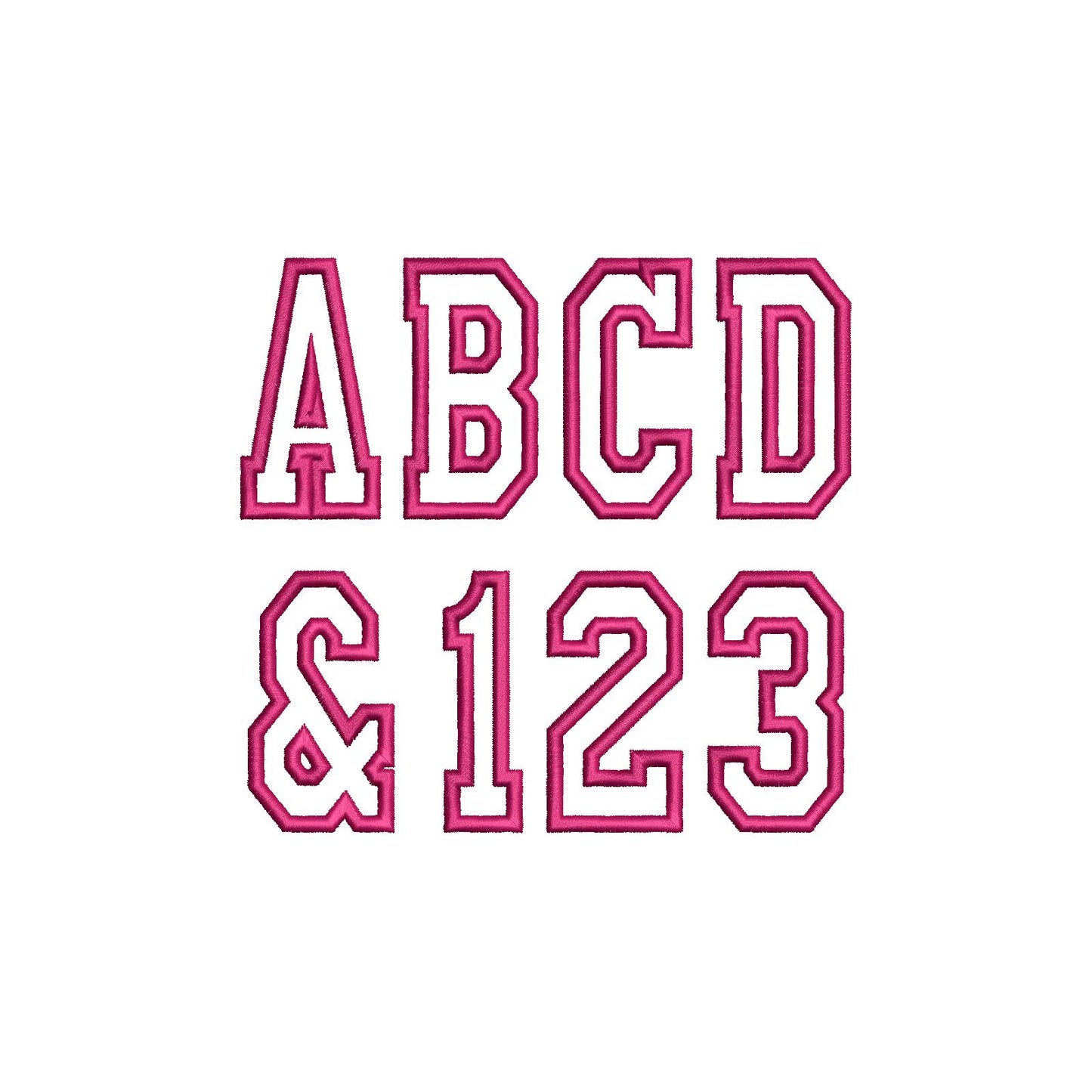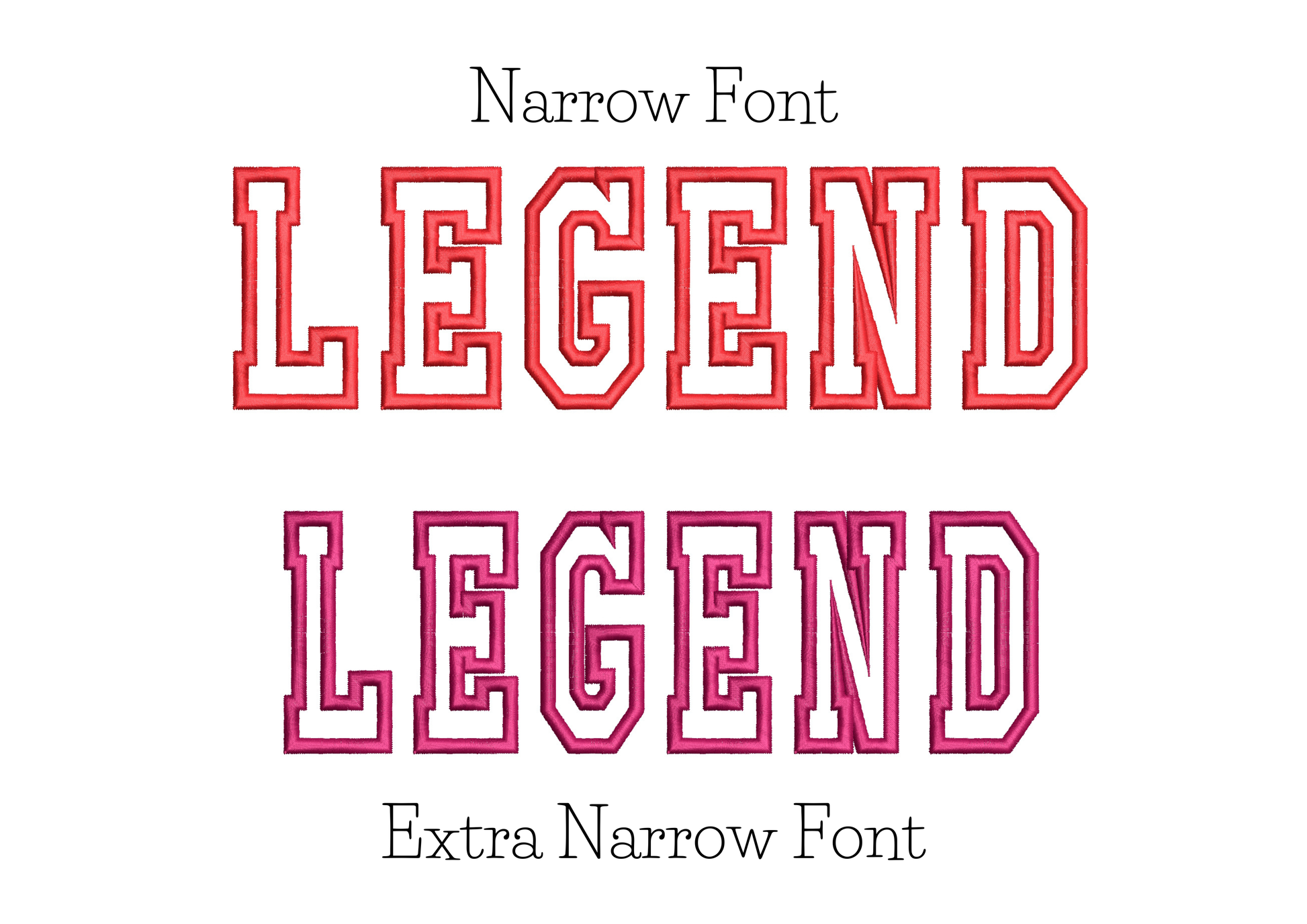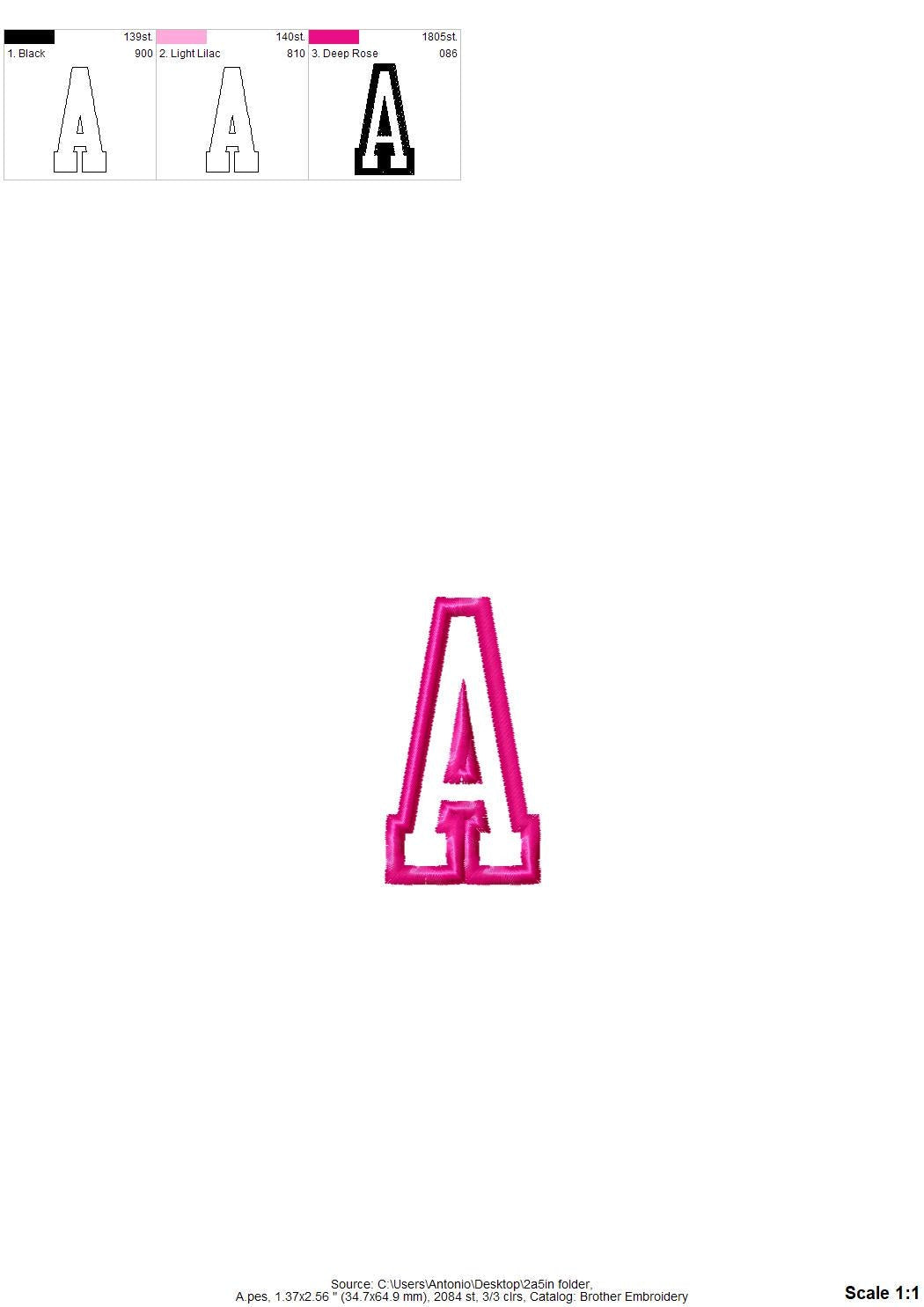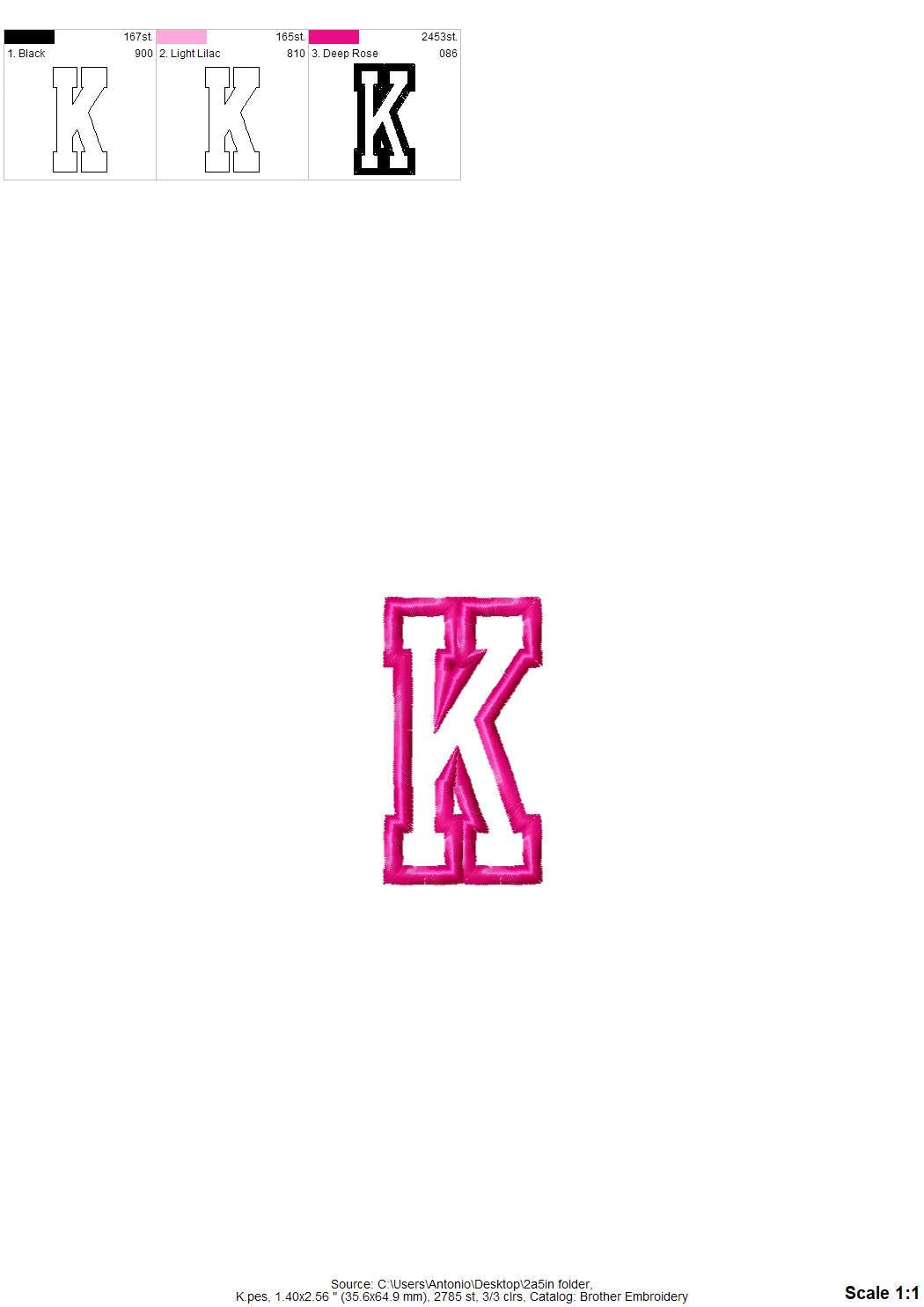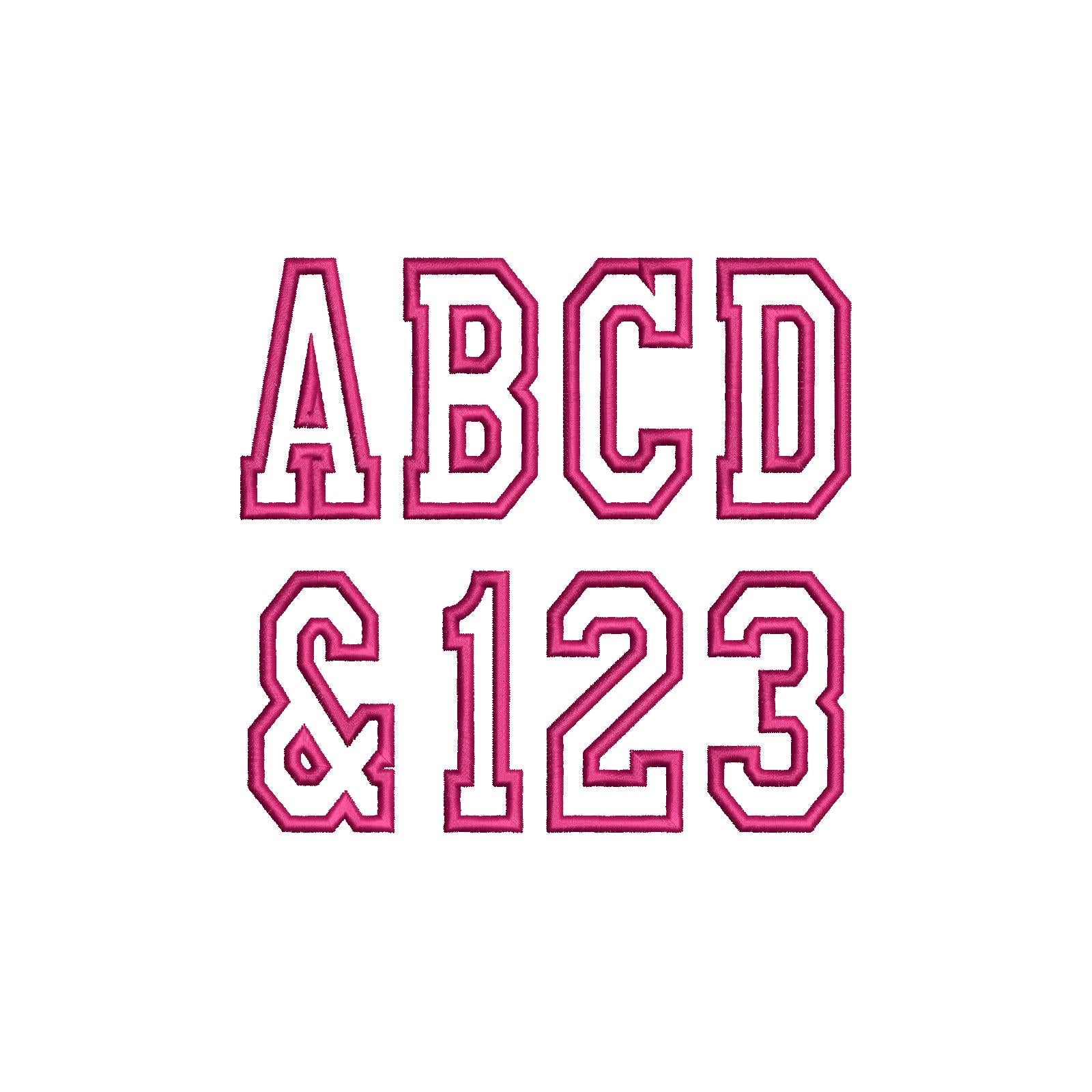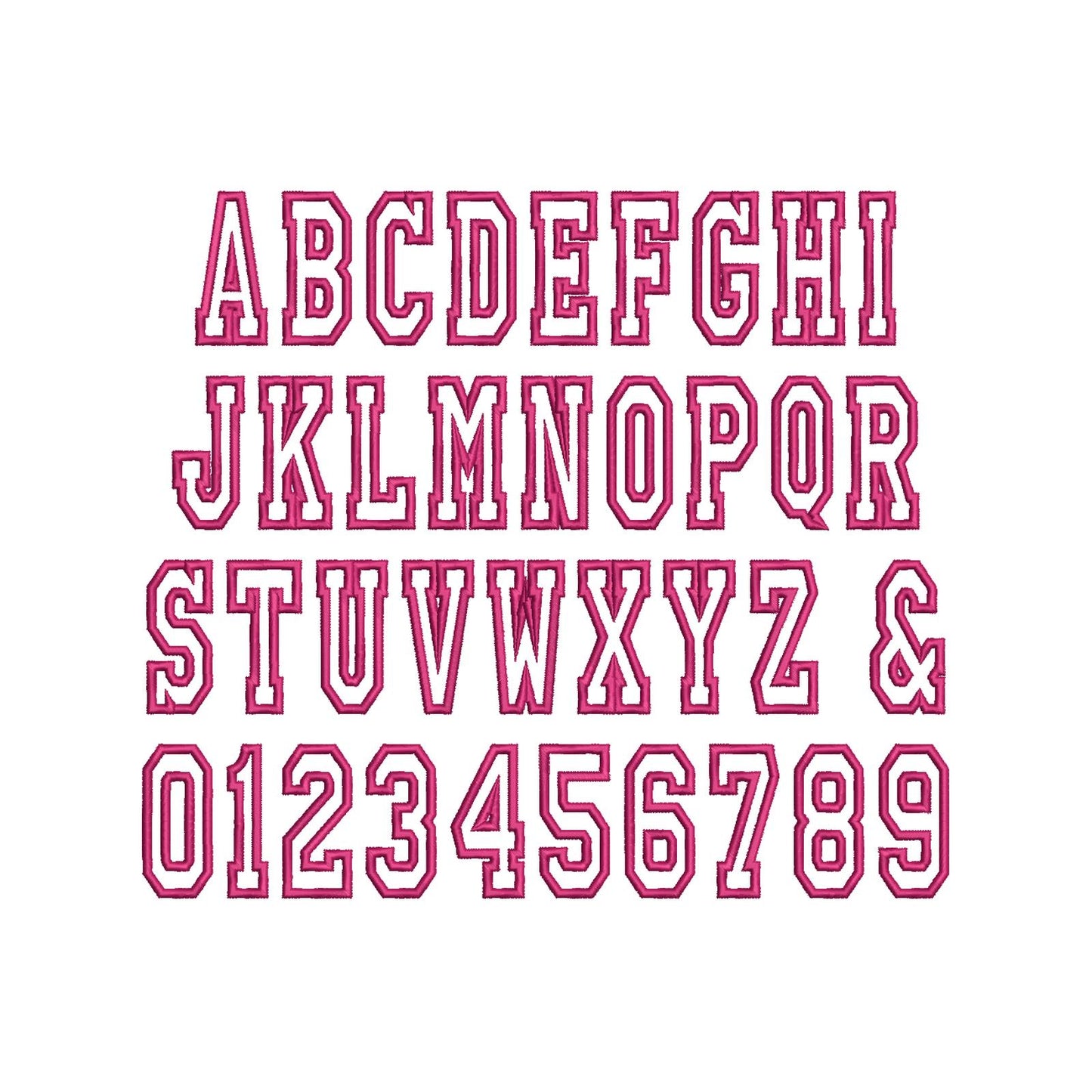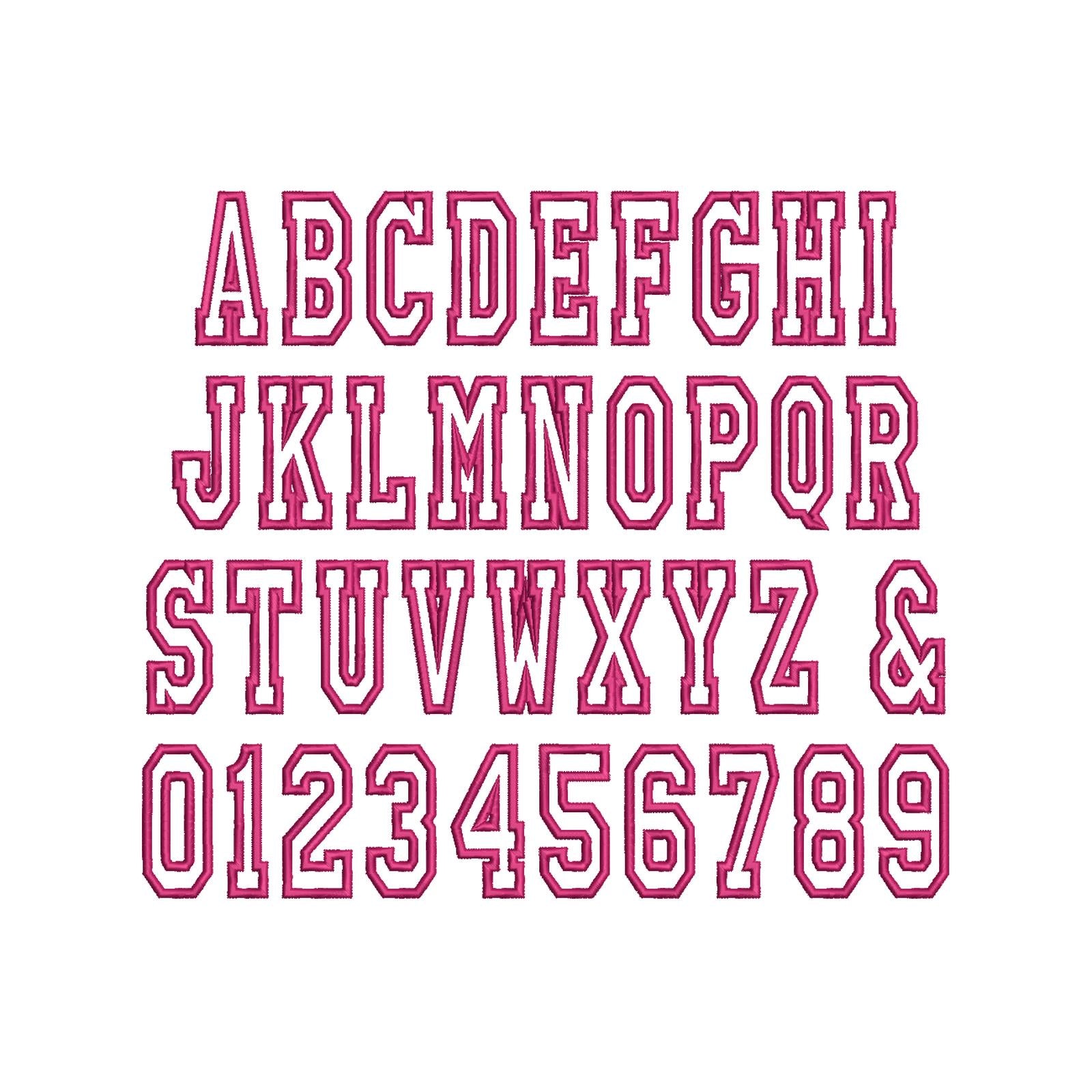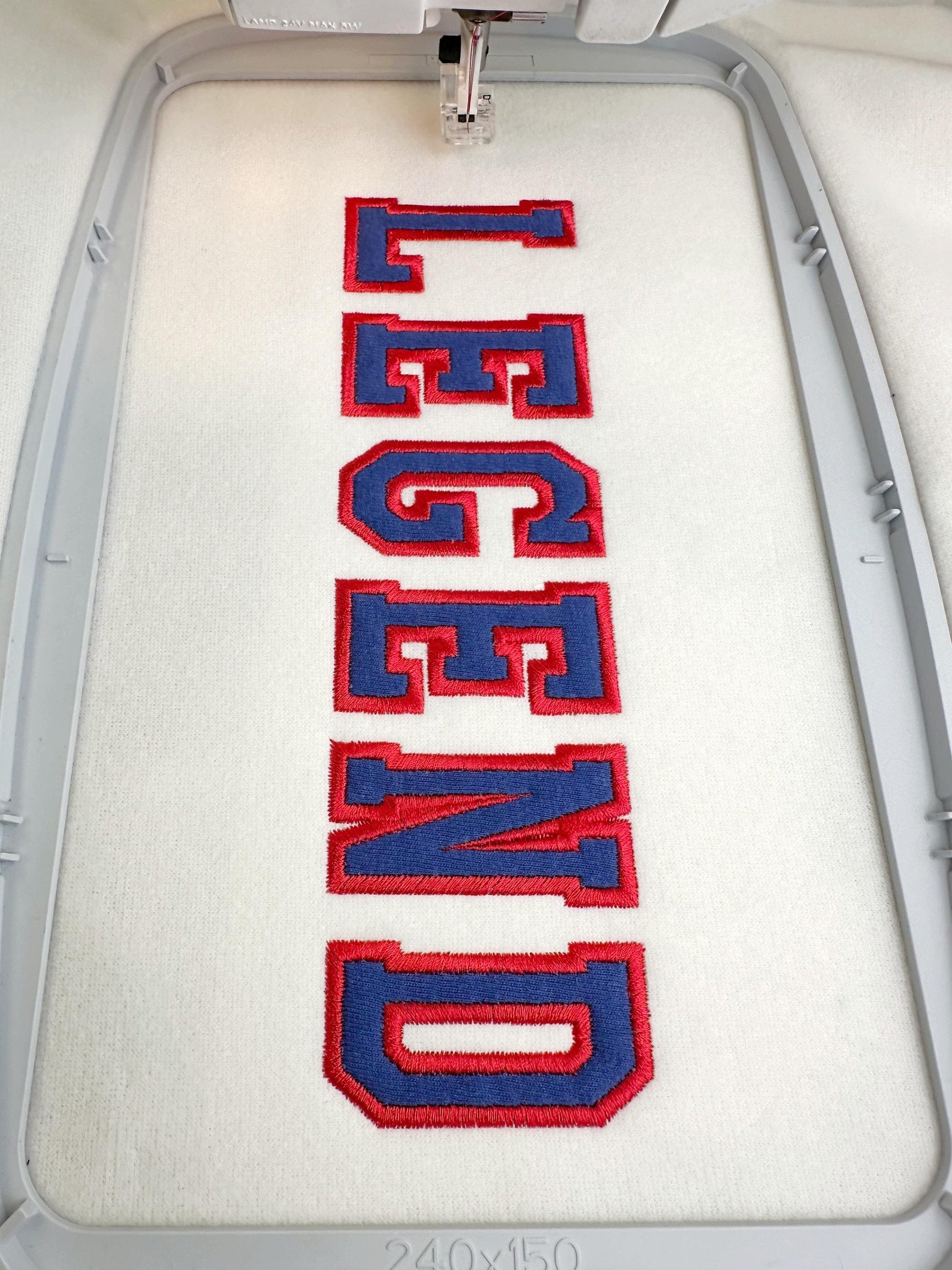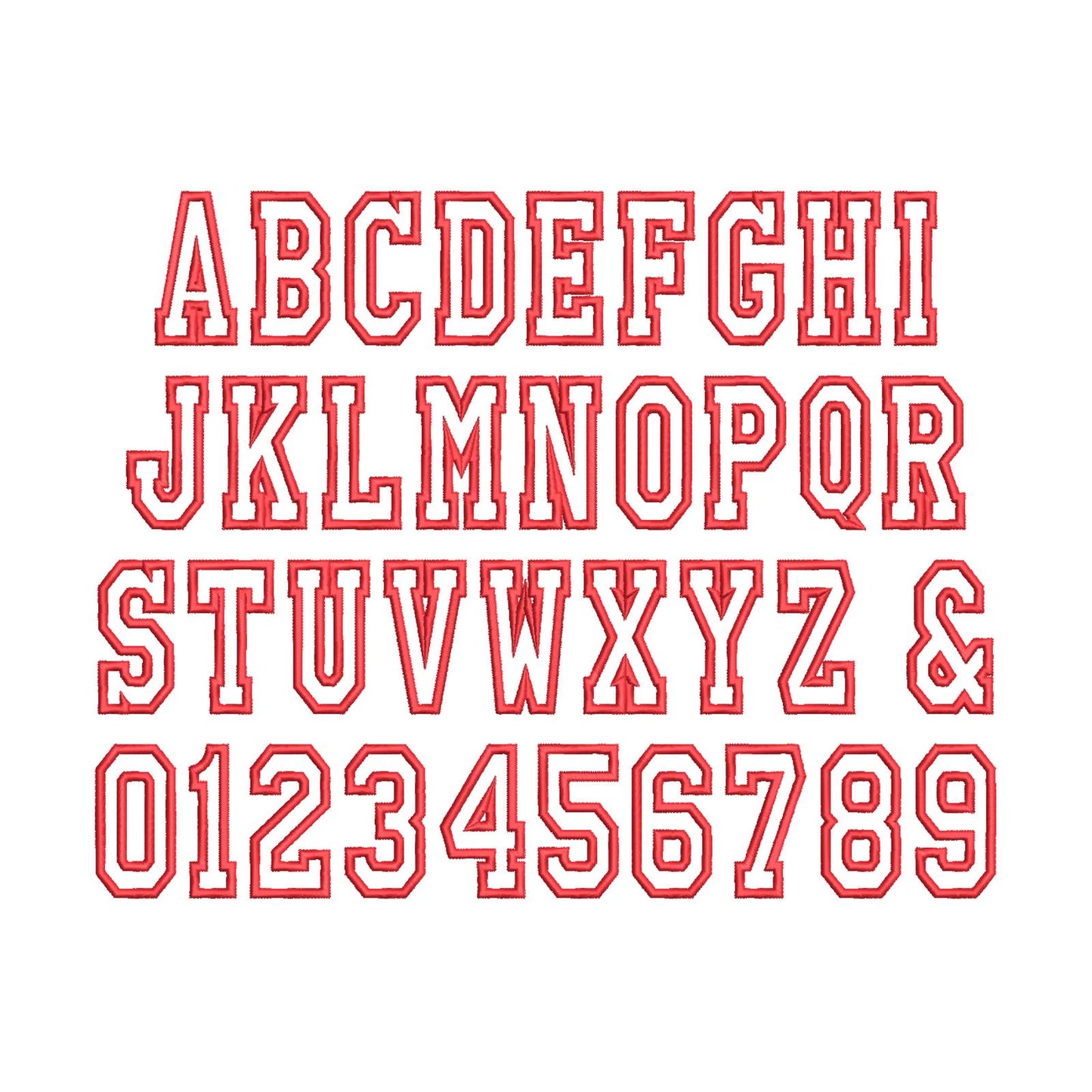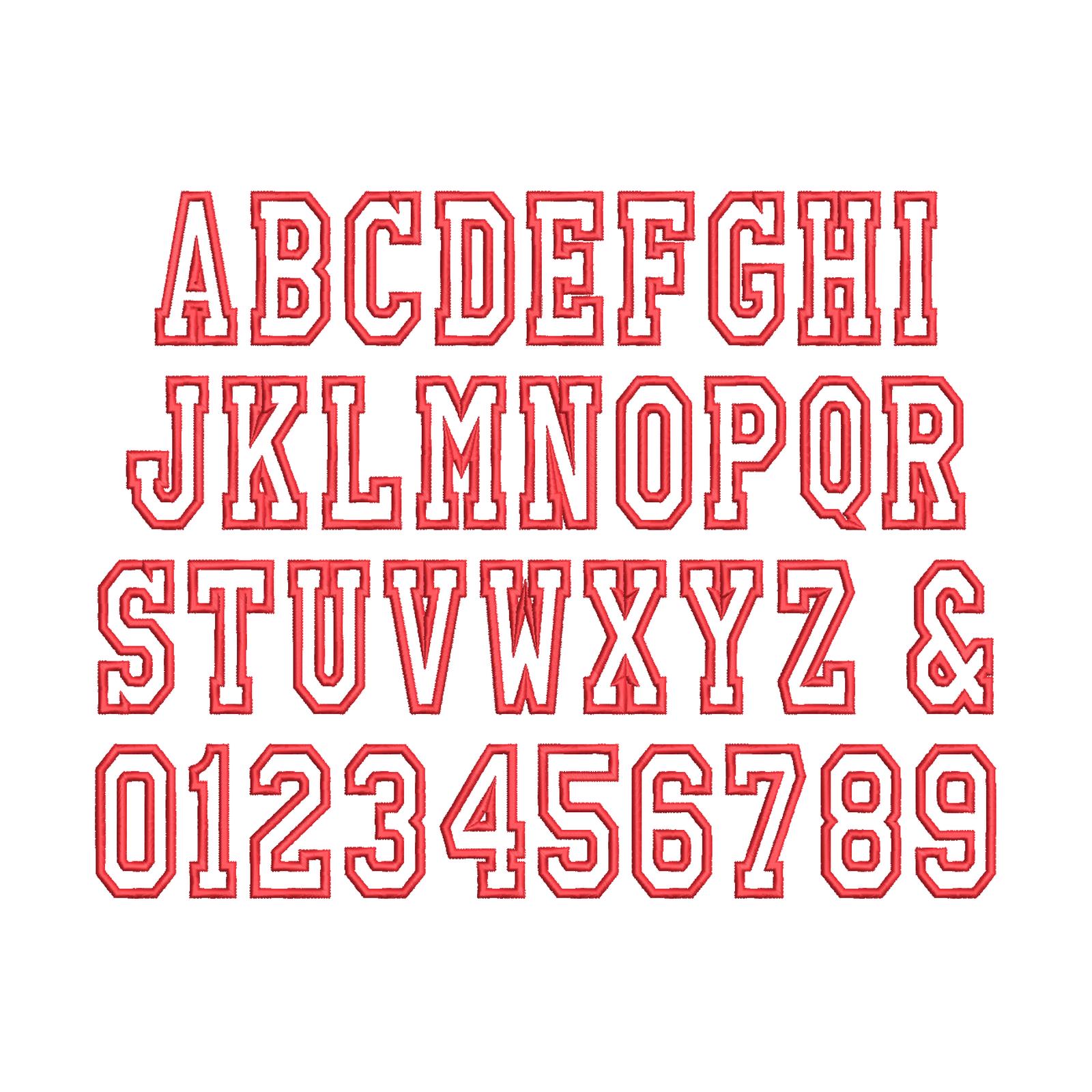
Narrow Varsity Sport Font 2 types
Or click to open the linkTwo narrow varsity sport applique fonts, Narrow and Extra Narrow. Made for team shirts, jerseys, jackets and school names.
Two narrow block varsity fonts, Narrow and Extra Narrow, stitched as applique in three sizes: 2, 2.5 and 3 inches. Each has uppercase letters A to Z, numbers 0 to 9 and an ampersand.
- Narrow and Extra Narrow varsity applique fonts
- Uppercase A to Z, numbers 0 to 9, ampersand
- 3 sizes: 2, 2.5 and 3 in